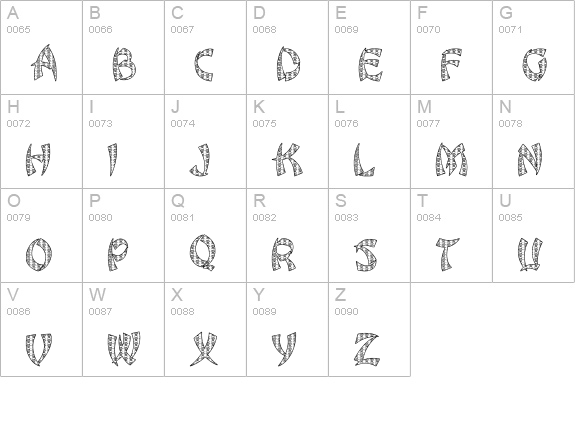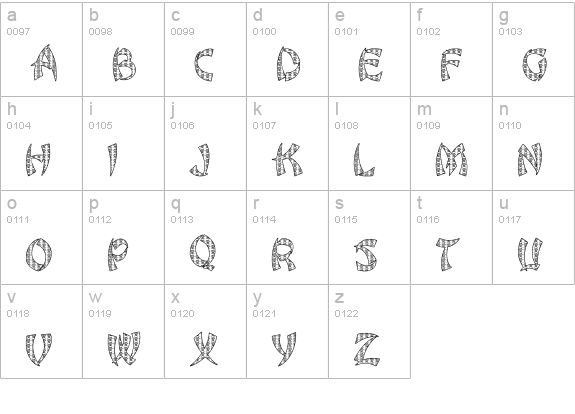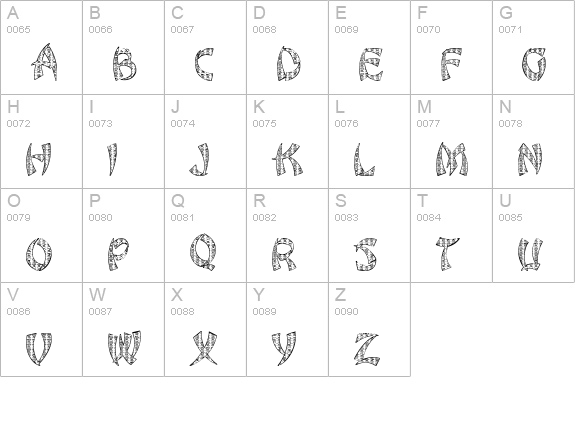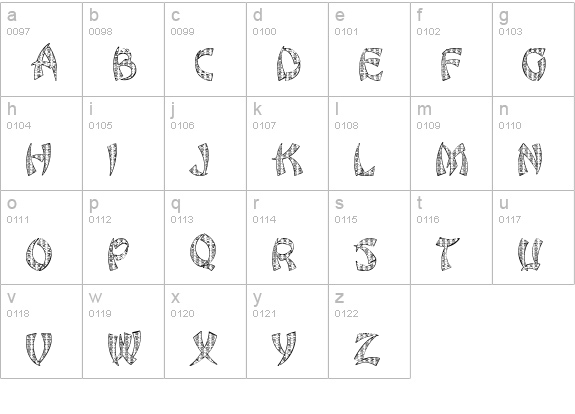
Introducing JLR Chinese Love Letters font, a captivating and enchanting typeface that beautifully captures the essence of love and romance. Inspired by the elegant strokes of traditional Chinese calligraphy, this font exudes a sense of timeless beauty and grace. Each letter is meticulously crafted with intricate details, making JLR Chinese Love Letters font a true work of art. The flowing curves and delicate lines effortlessly dance across the page, creating a visually stunning display that is sure to captivate the hearts of its viewers. This font is not just visually appealing, but also versatile in its application. Whether you are designing wedding invitations, love letters, or any project that aims to convey a sense of love and affection, JLR Chinese Love Letters font is the perfect choice. And the best part? JLR Chinese Love Letters font is freely available to download at FontsMarket.com. This means that you can easily access this exquisite font without any cost, allowing you to enhance your design projects without breaking the bank. So why wait? Download JLR Chinese Love Letters font today and let its beauty and elegance breathe life into your creations. Whether you are a designer, a writer, or simply someone who appreciates the art of typography, this font is sure to leave a lasting impression on all who encounter it.